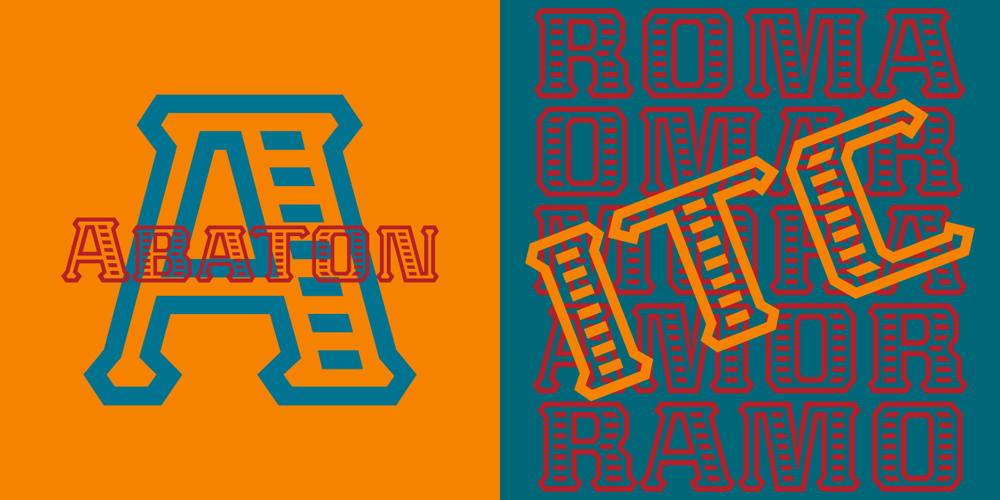
ITC Abaton Font Family was designed by Luis Siquot and published by ITC. ITC Abaton contains 1 styles and family package options. ITC Abaton, by Argentinian designer Luis Siquot, is an exercise in geometry and simplification. “It is done,” says Siquot, “with few elements, with modules of only straight lines (horizontals, verticals and diagonals of almost 45 degrees). Drawing the I and the O, I got the basic elements, and so started the fight between strict geometry and optical impression, until I obtained the rest of the characters.” The basic rectangular form is characterized by wedge-shaped serifs, almost like caps on the heads and feet of the letters. “Abaton has the ‘spirit’ of 19th-century faces used on money bills or postage stamps, but the realization is totally different,” Siquot explains. Abaton is a “shaded” typeface of caps and slightly smaller caps, upright and slightly condensed in form. Although the letterforms are legible at small sizes, the shading tends to clog up if it gets too small, so Abaton is happiest as a distinctive display face.